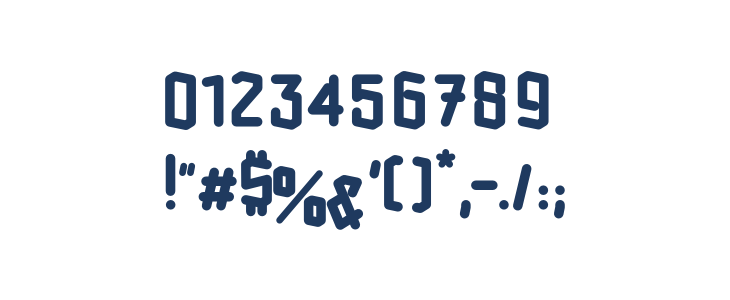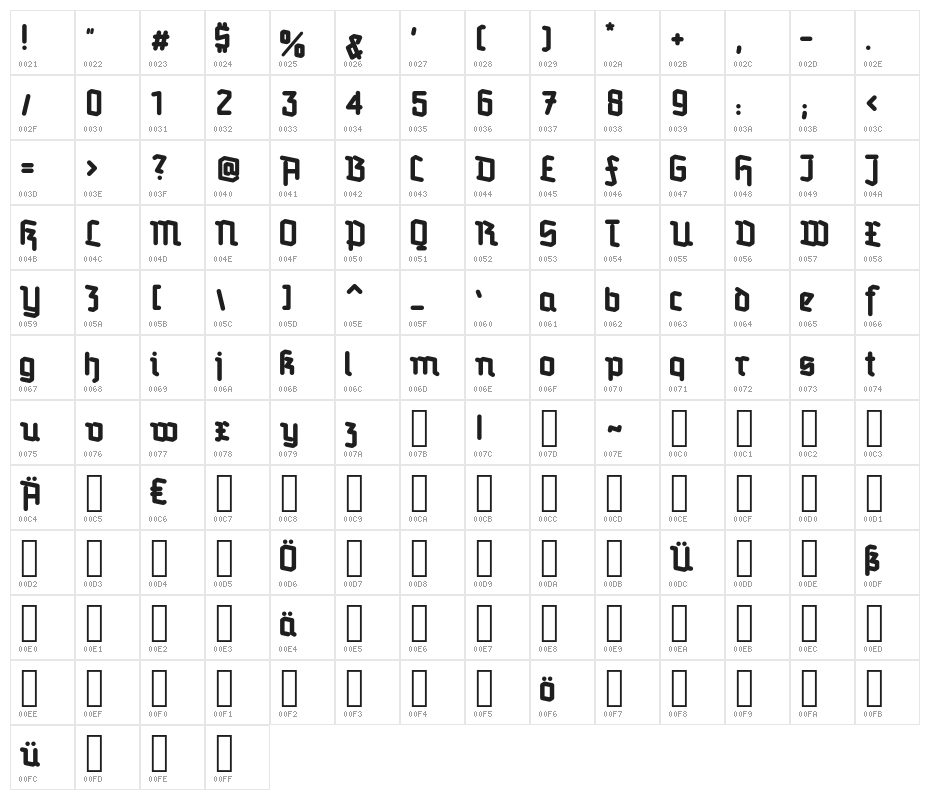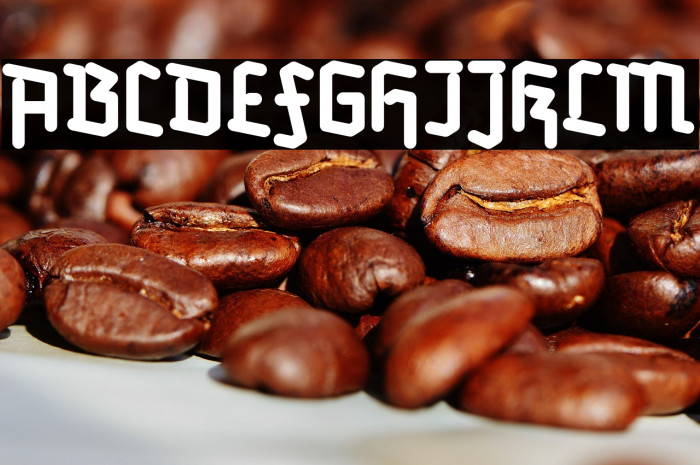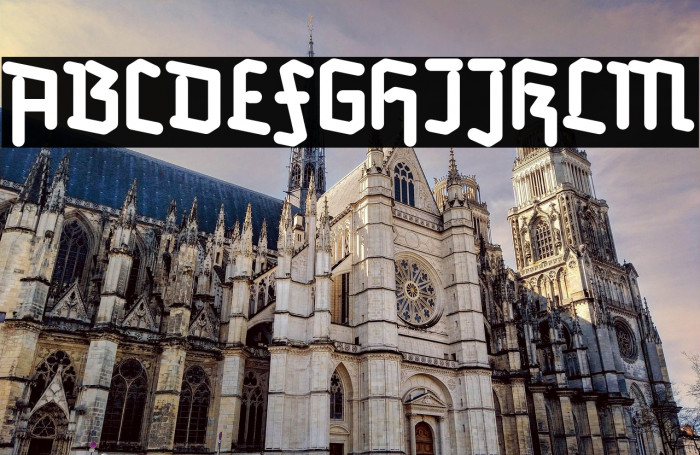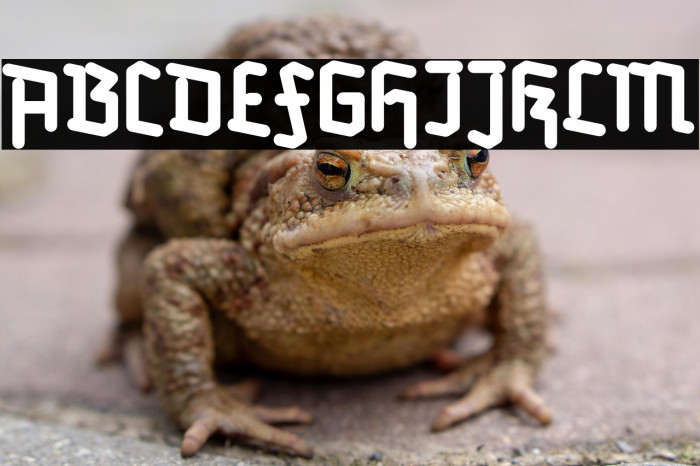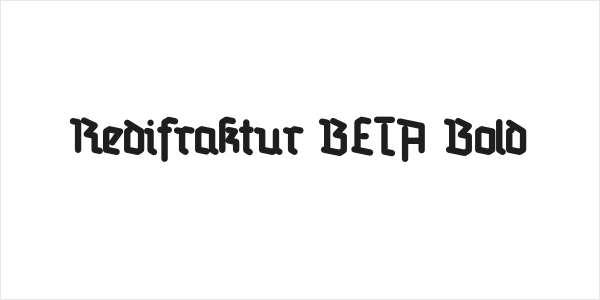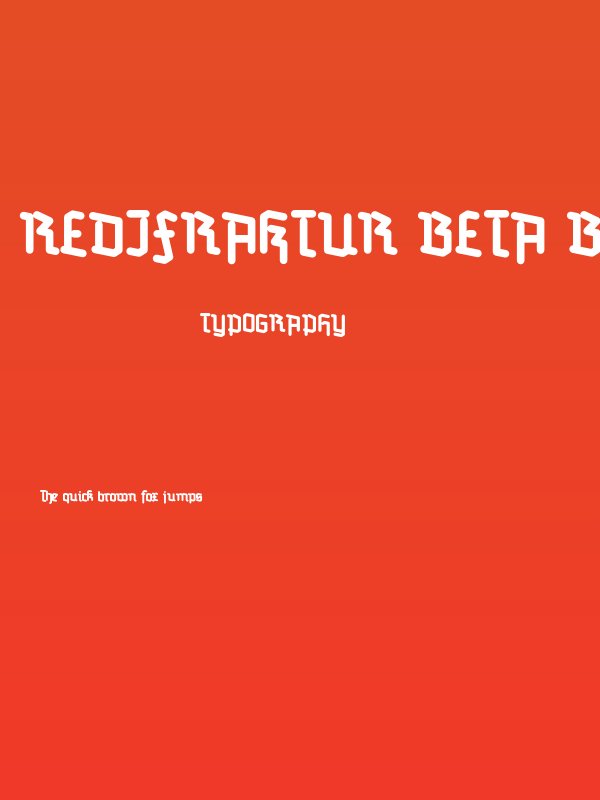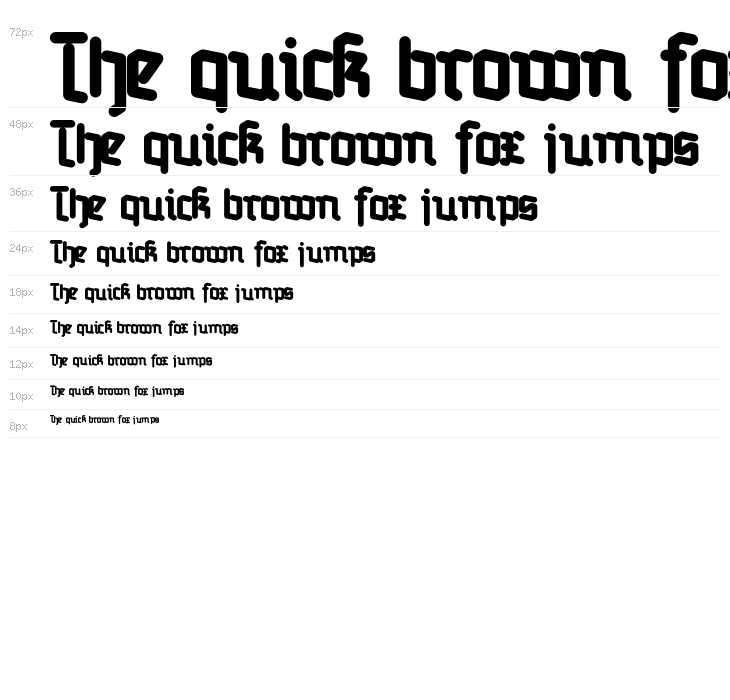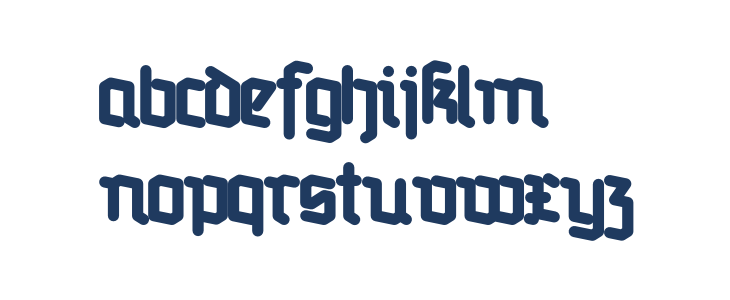
Redifraktur BETA Bold Font
Redifraktur BETA Bold Description
This font features a bold and striking design with a modern twist on traditional blackletter styles. The characters are constructed with thick, angular strokes that create a sense of strength and stability. The uppercase and lowercase letters maintain a consistent geometric form, while the numbers and special characters complement the overall aesthetic. The font's unique style is both eye-catching and legible, making it suitable for a variety of design applications.